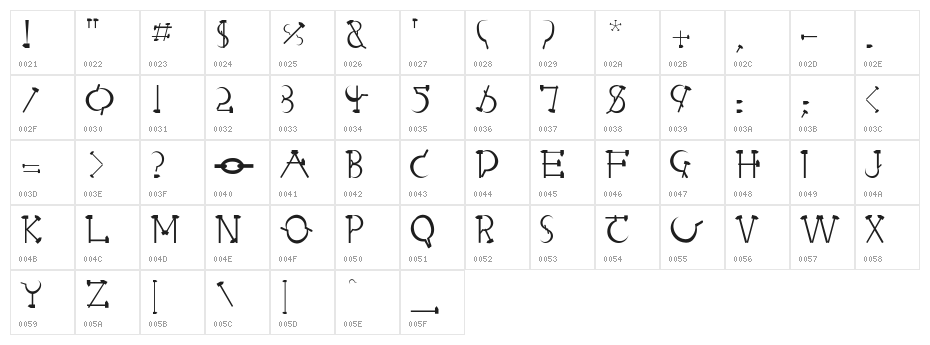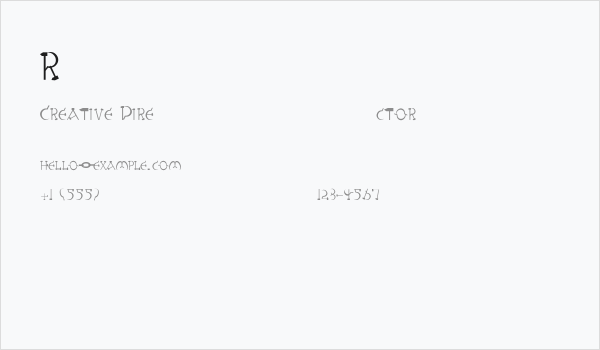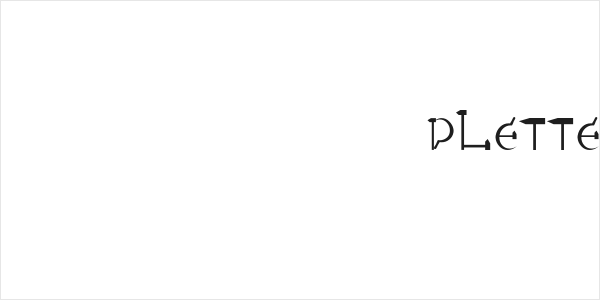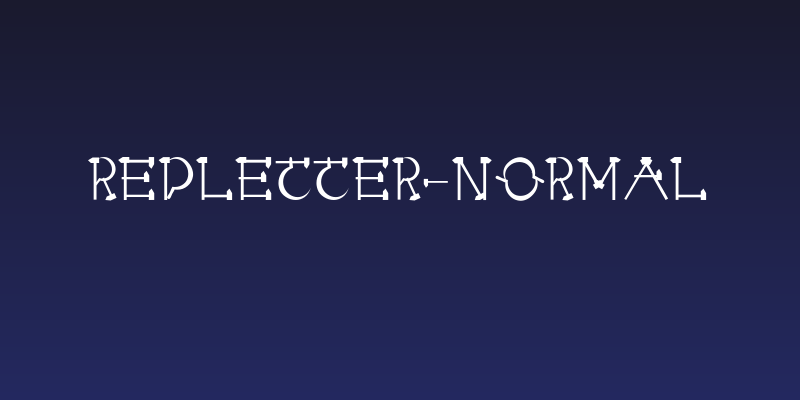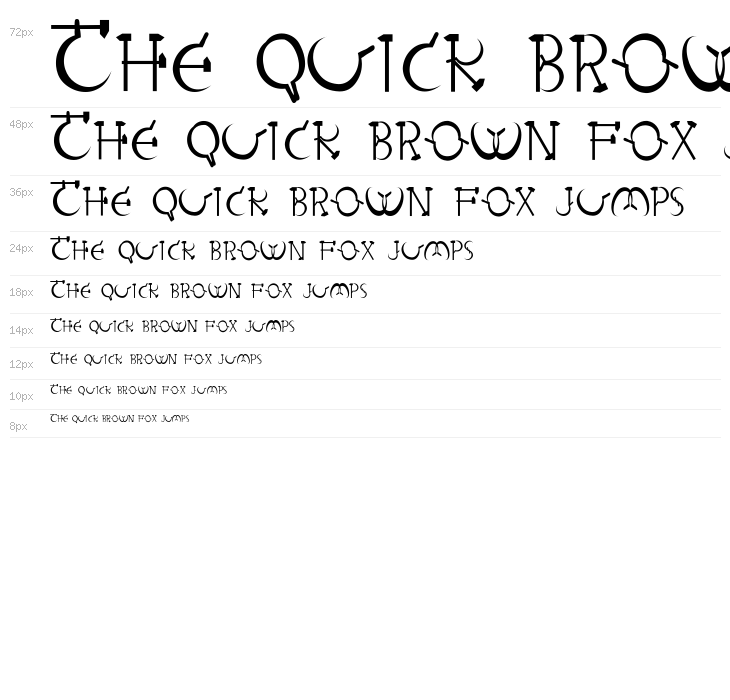
RedLetter-Normal Font
RedLetter-Normal Description
This font features a unique and artistic design with geometric elements and sharp angles. The characters are constructed with a combination of straight lines and curves, giving them a modern and futuristic appearance. The uppercase letters are bold and distinct, while the lowercase letters maintain a consistent style. Numbers and special characters follow the same design principles, ensuring uniformity across the font. The overall look is striking and memorable, making it suitable for creative and bold design projects.